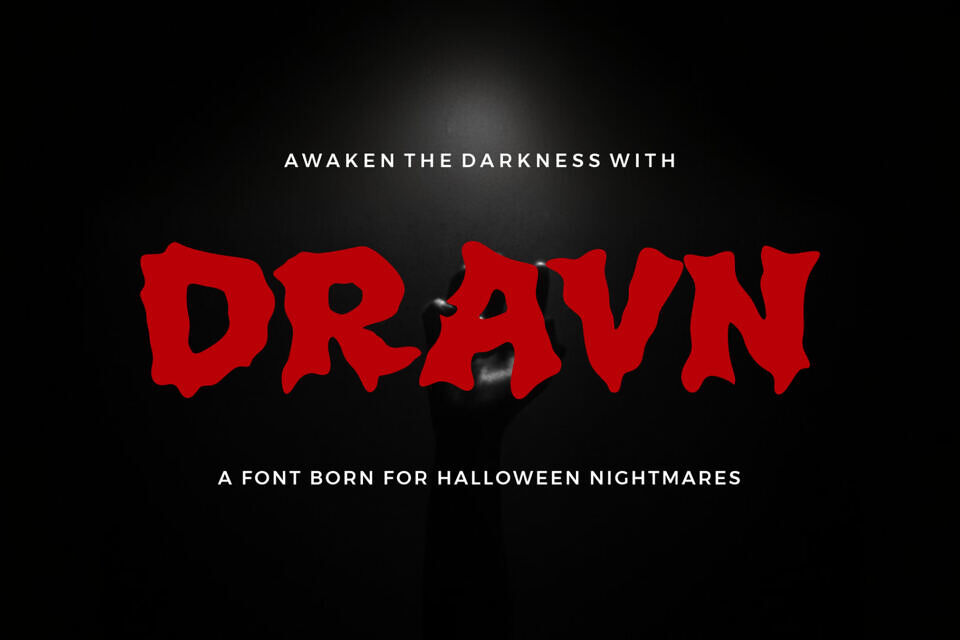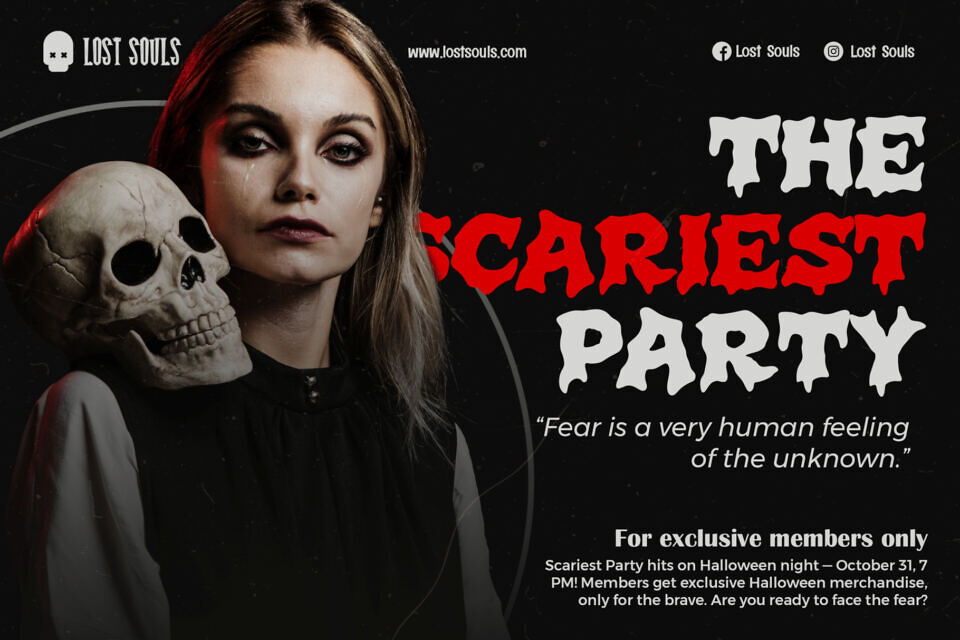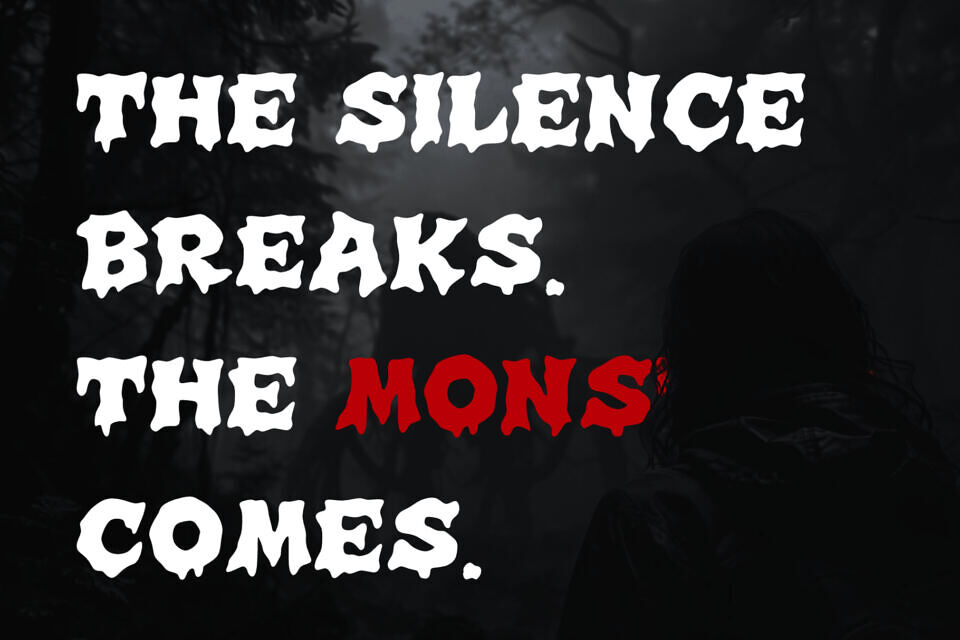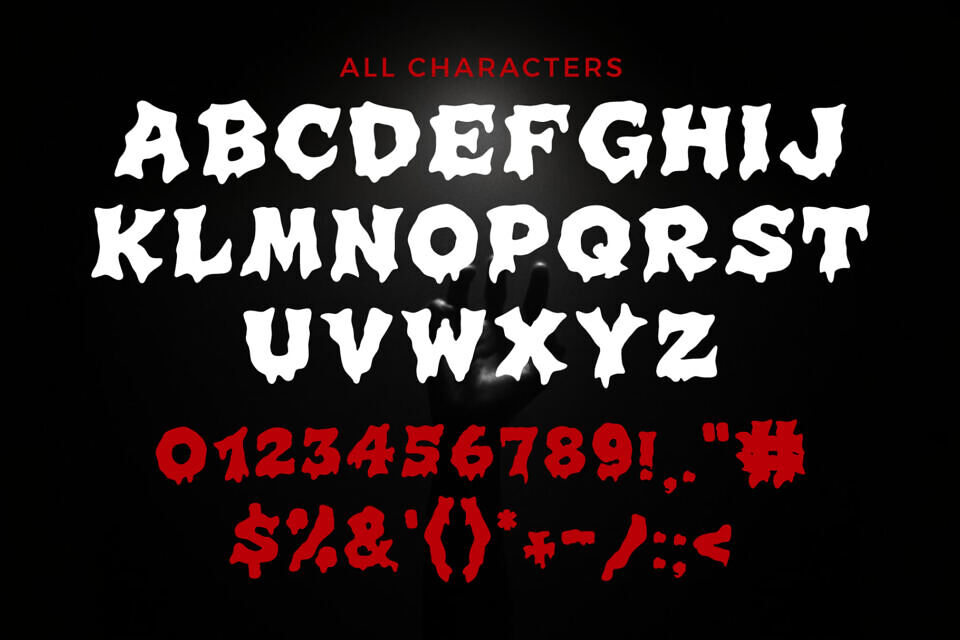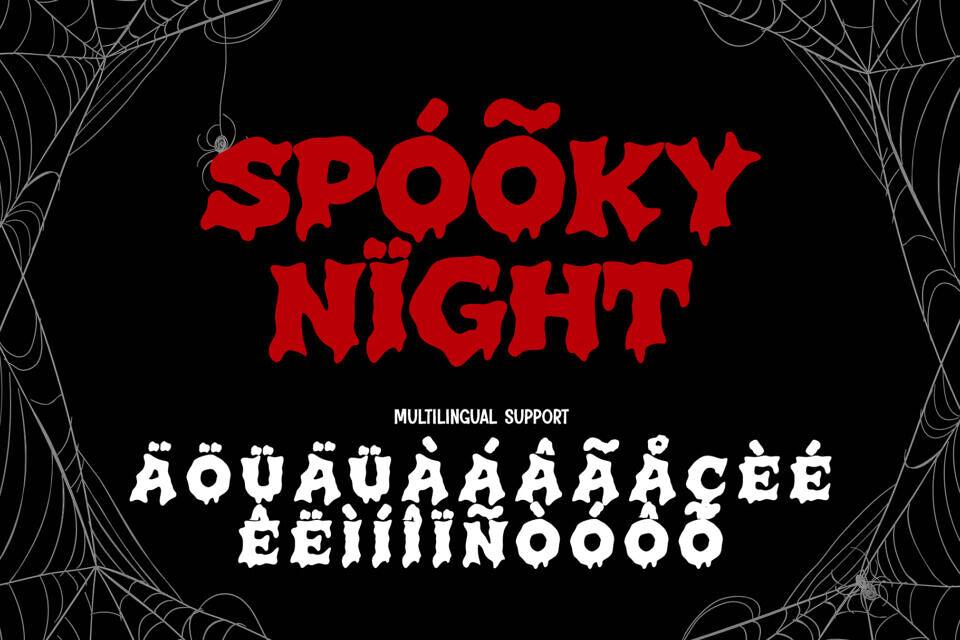
Dravn Font
Introducing Dravn Font, a chilling typeface born for Halloween nightmares. With its dripping, jagged letters, this font evokes the eerie essence of a spooky night, perfect for horror-themed designs.
Available in a versatile character set including letters, numbers, and special symbols, Dravn also offers multilingual support with accented characters. Ideal for posters, titles, and eerie artwork, it awakens the darkness with a haunting aesthetic. Let your creativity unleash the frightful spirit of the season!